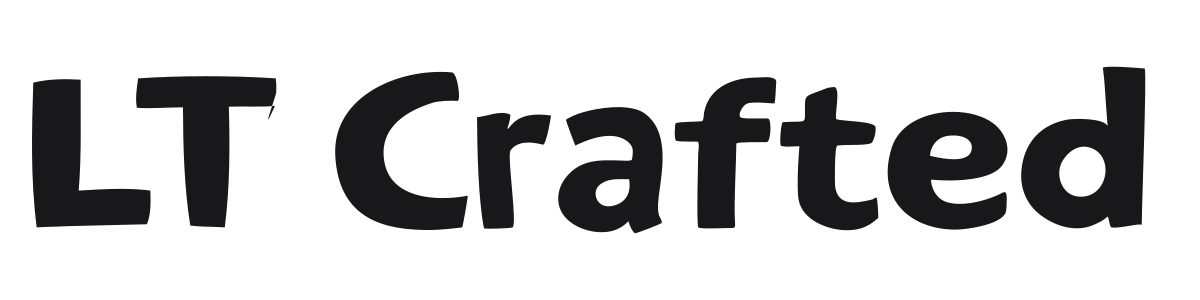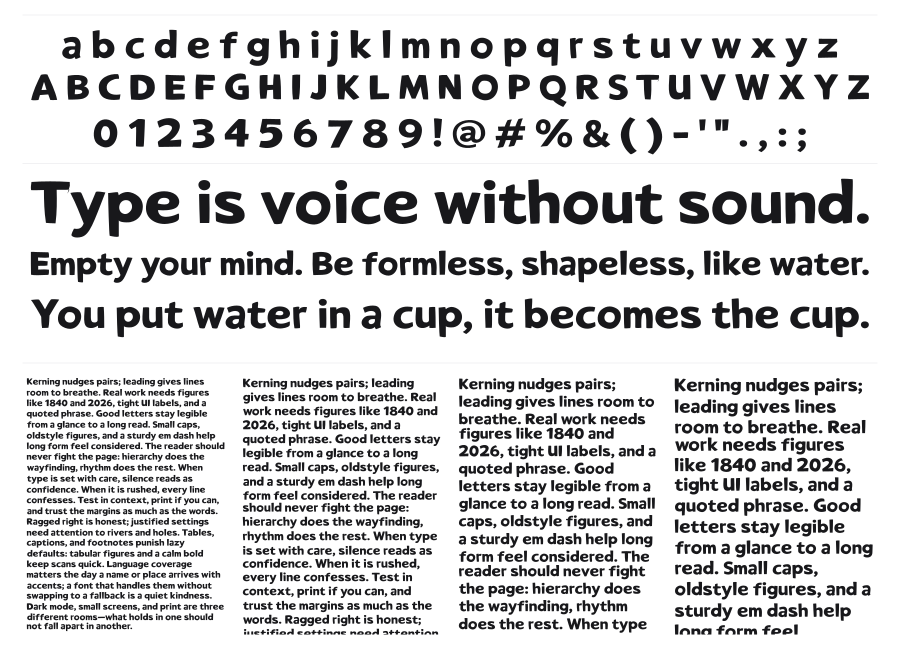
LT Crafted
LT Crafted is a heavy rounded sans-serif inspired by drawing fancy letters on construction paper and cutting them out with scissors. The thick, consistent strokes and fully rounded terminals give it a warm, handmade quality that feels both bold and approachable. It works best at large sizes where that crafted personality can breathe.